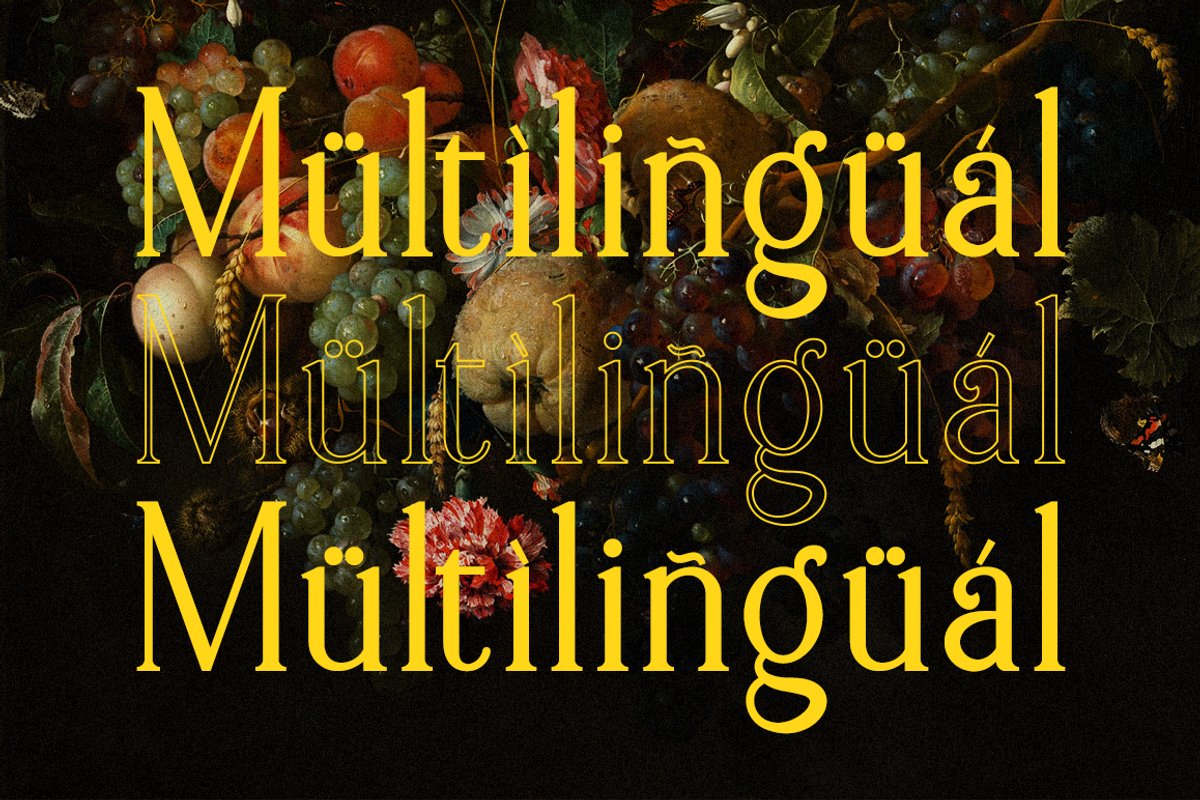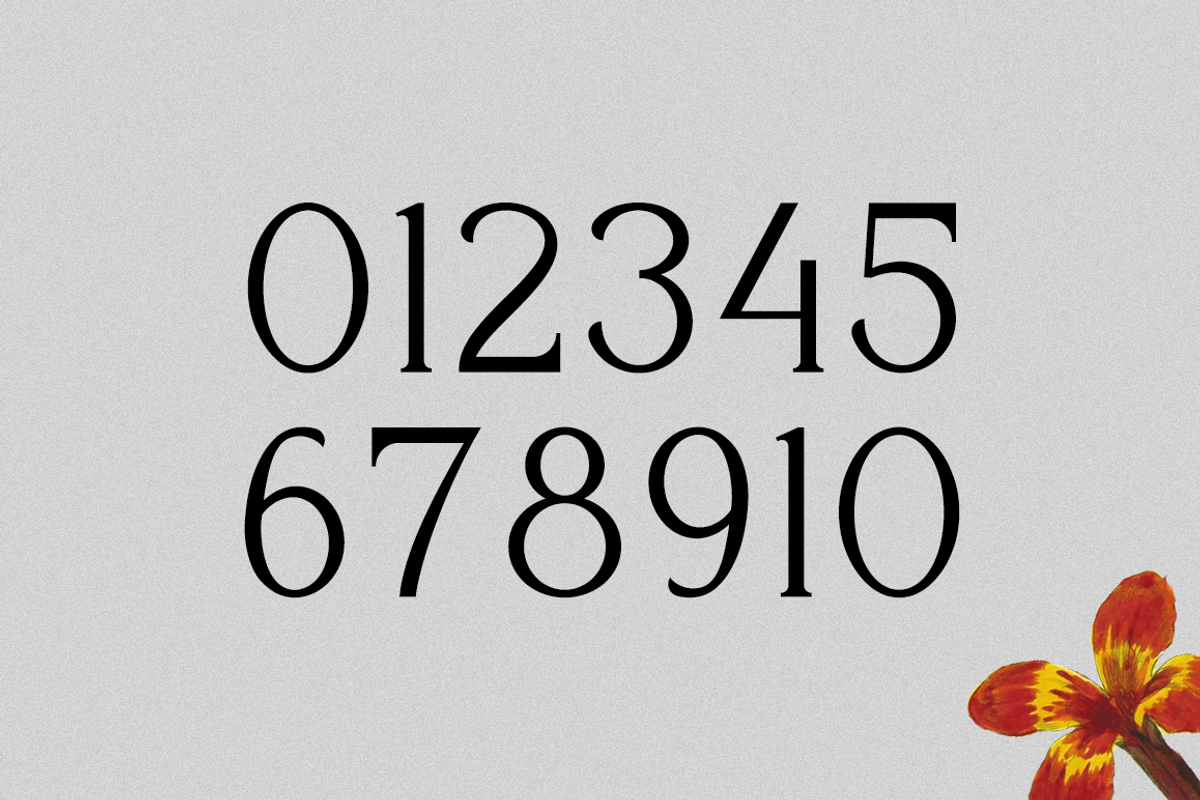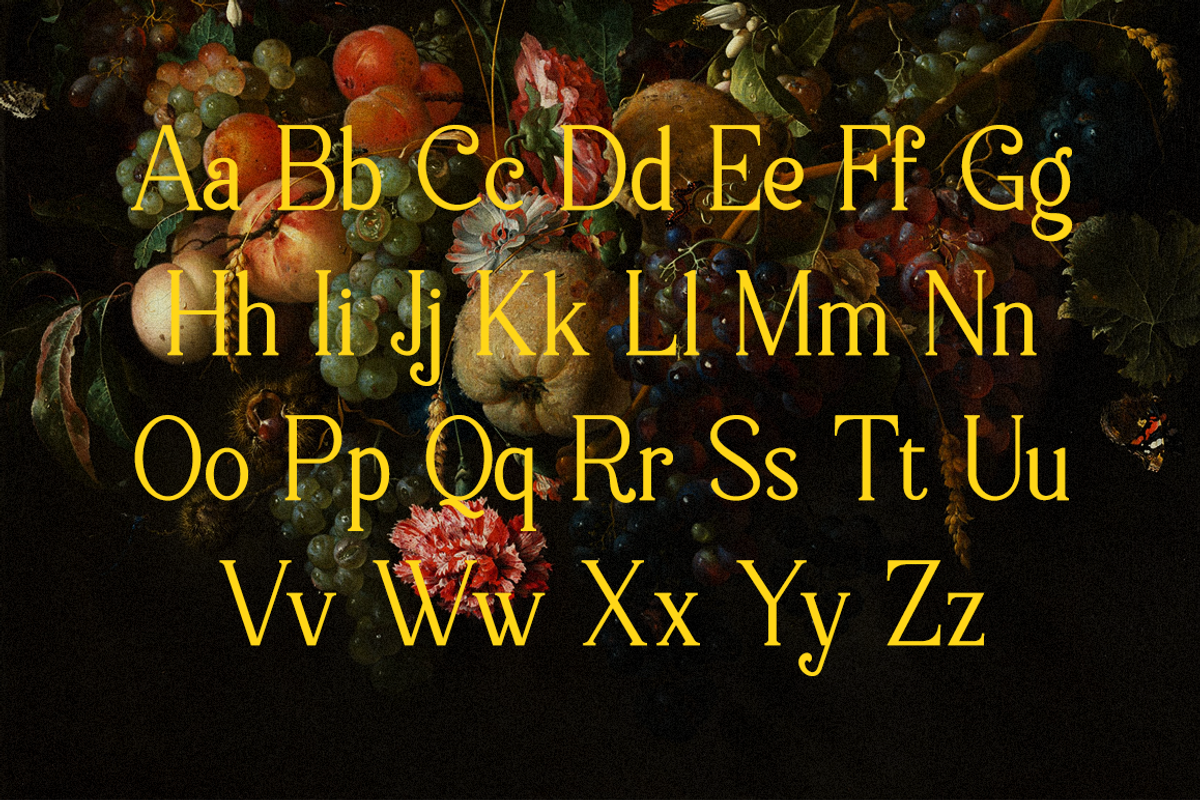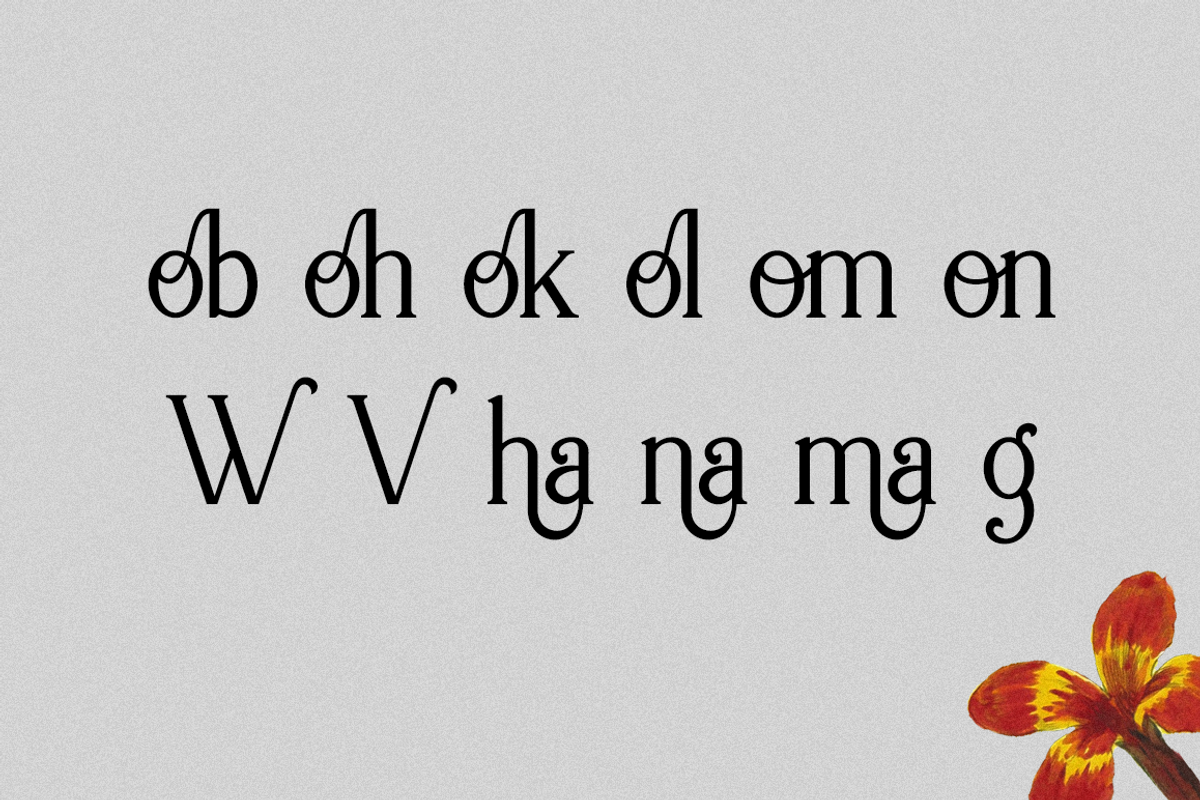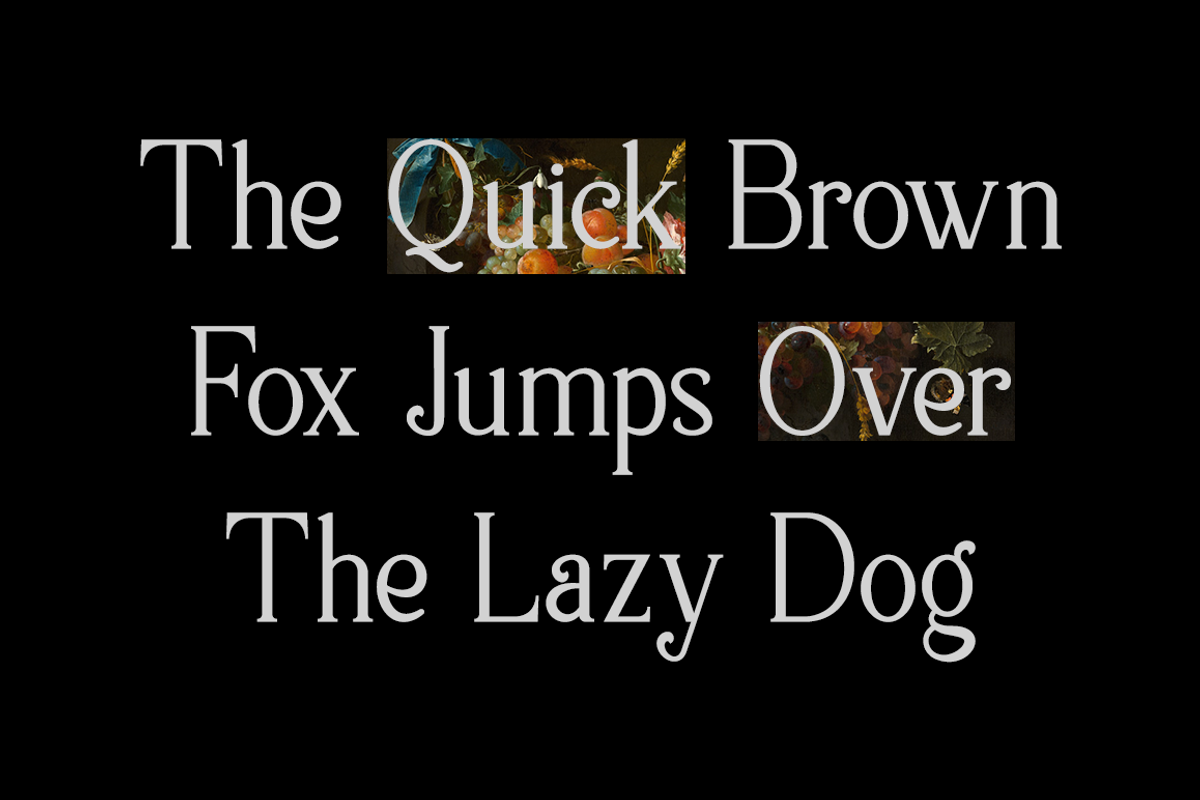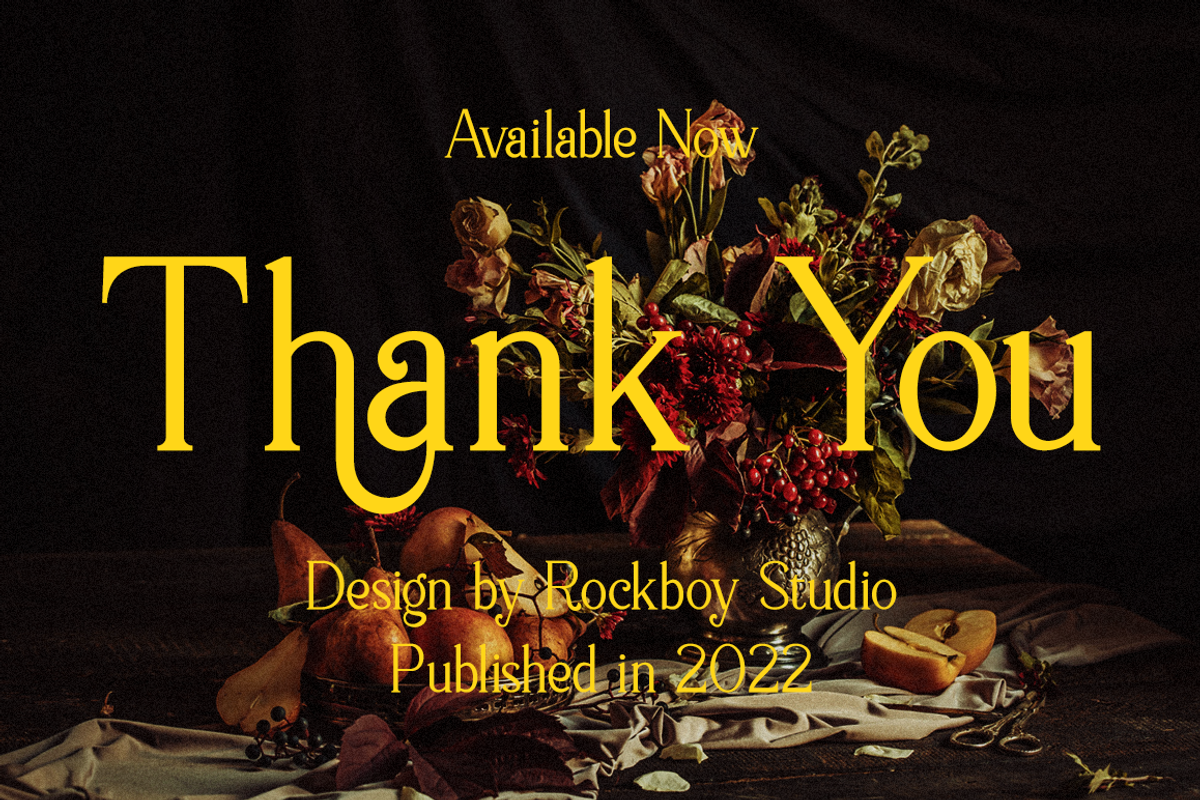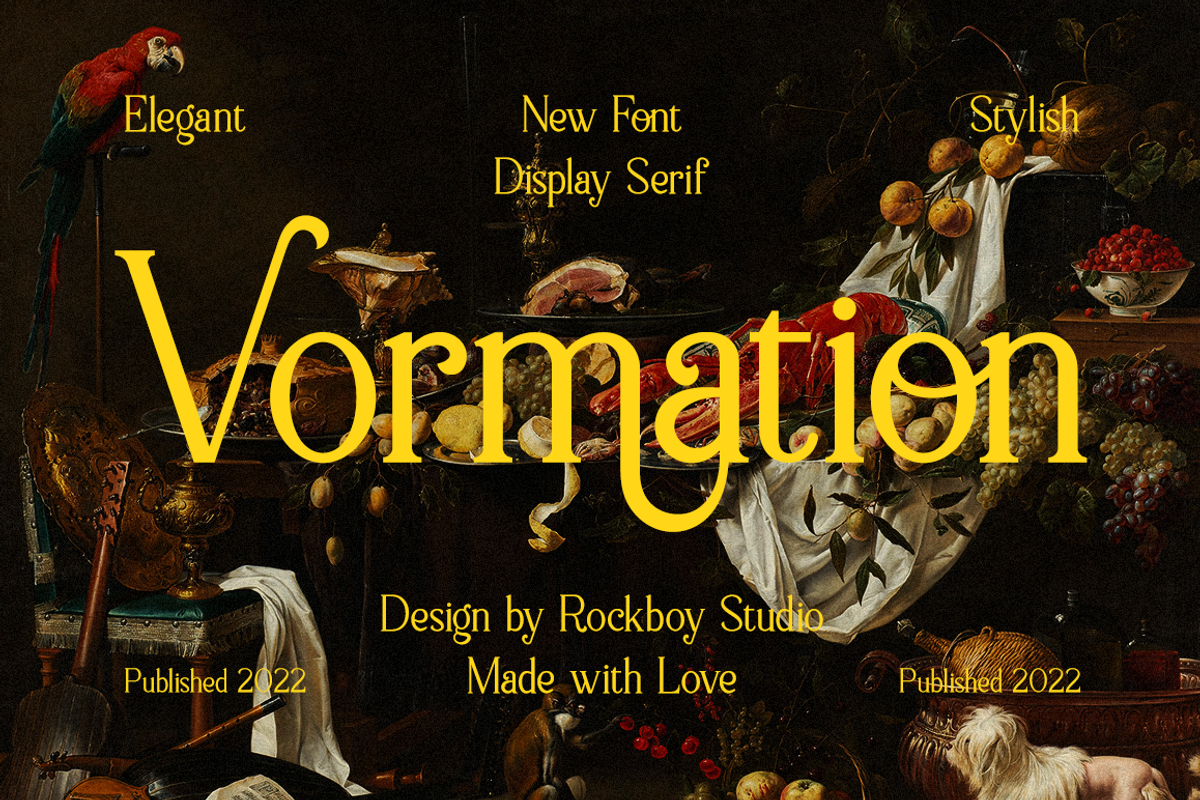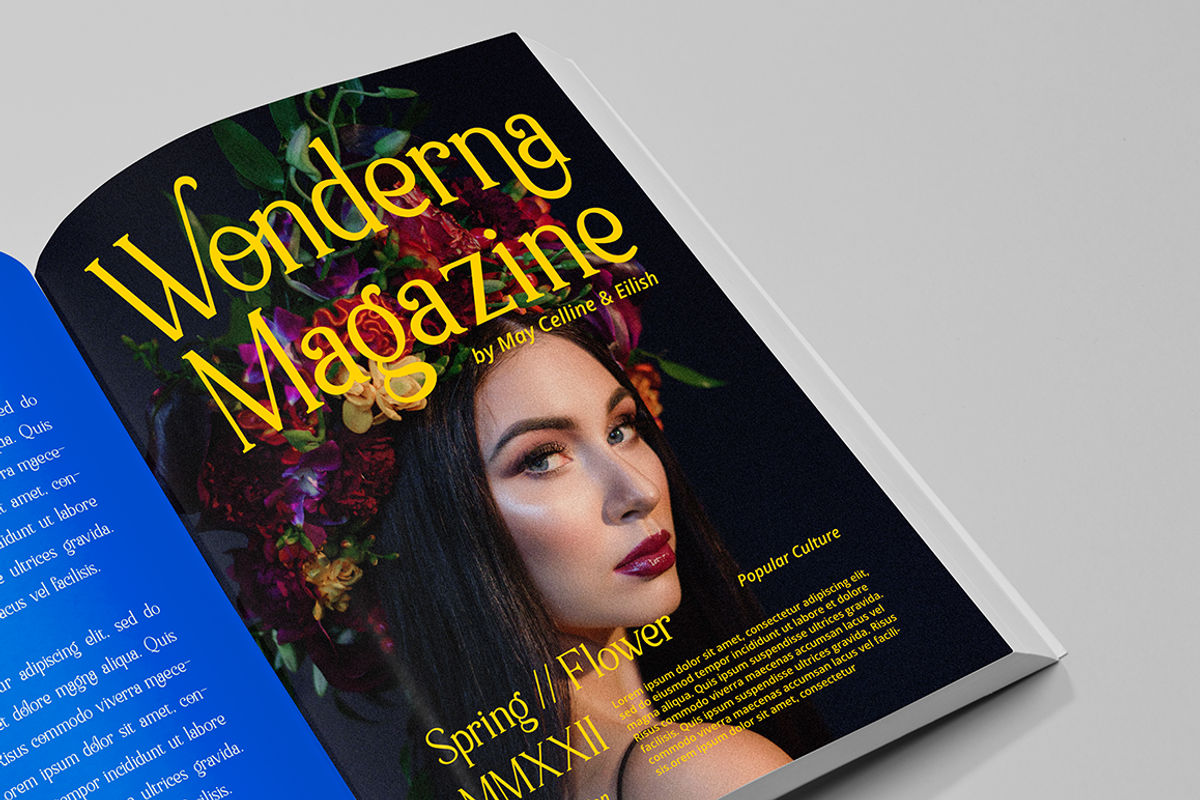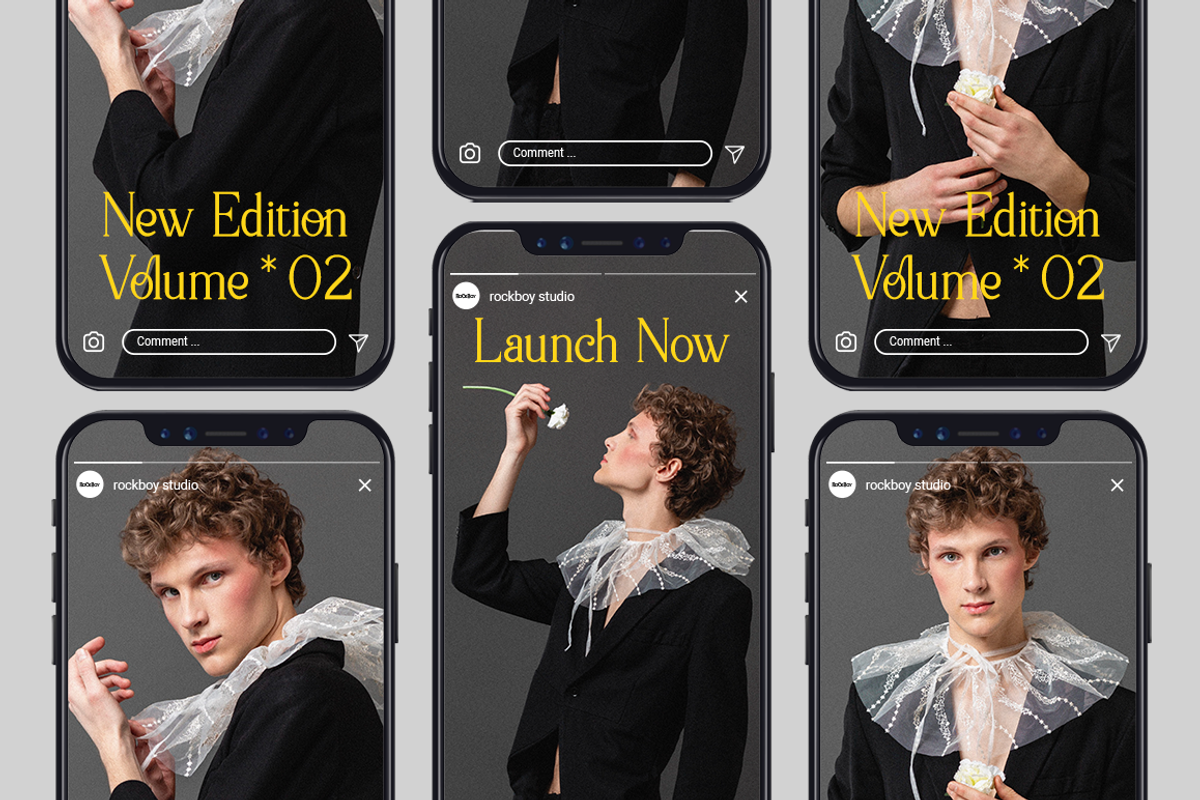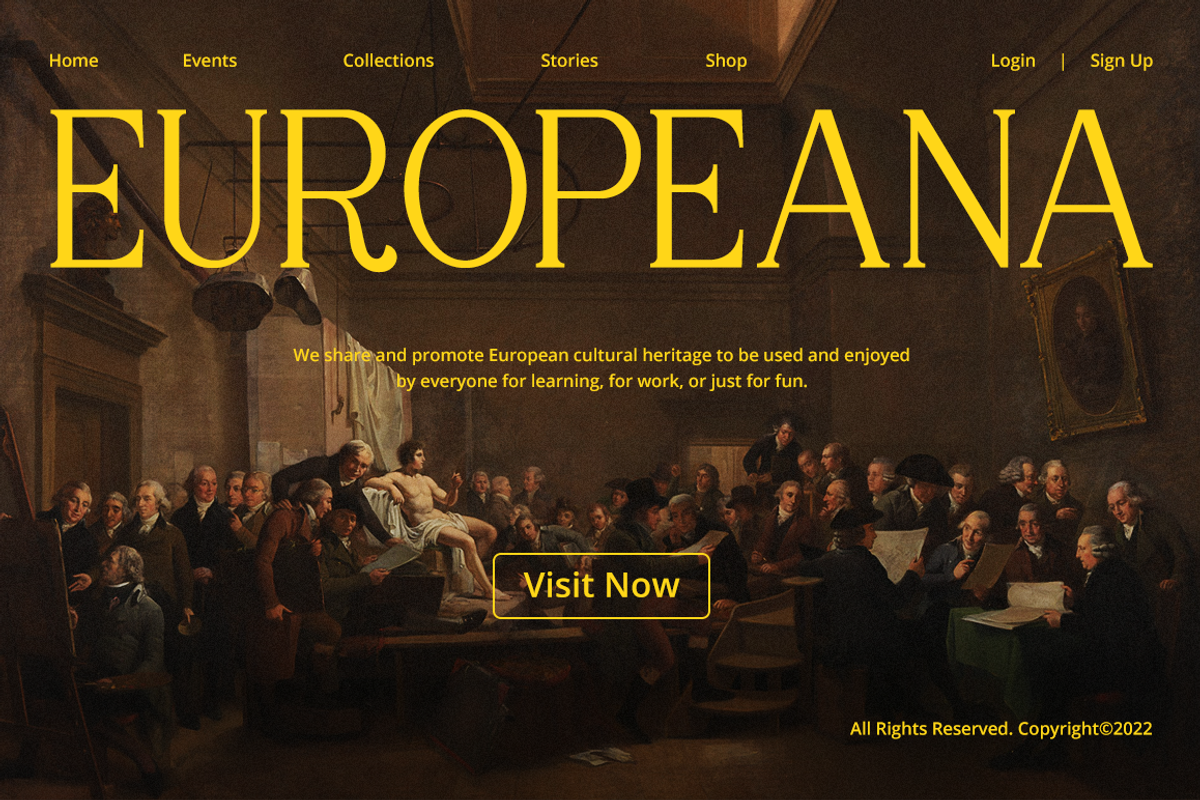
Vormation - Display Serif Font
Vormation is an elegant and distinct serif font. Suitable to a wide variety of designs due to its neat and simple style, this font has the potential to become your favorite go-to font, no matter the occasion!